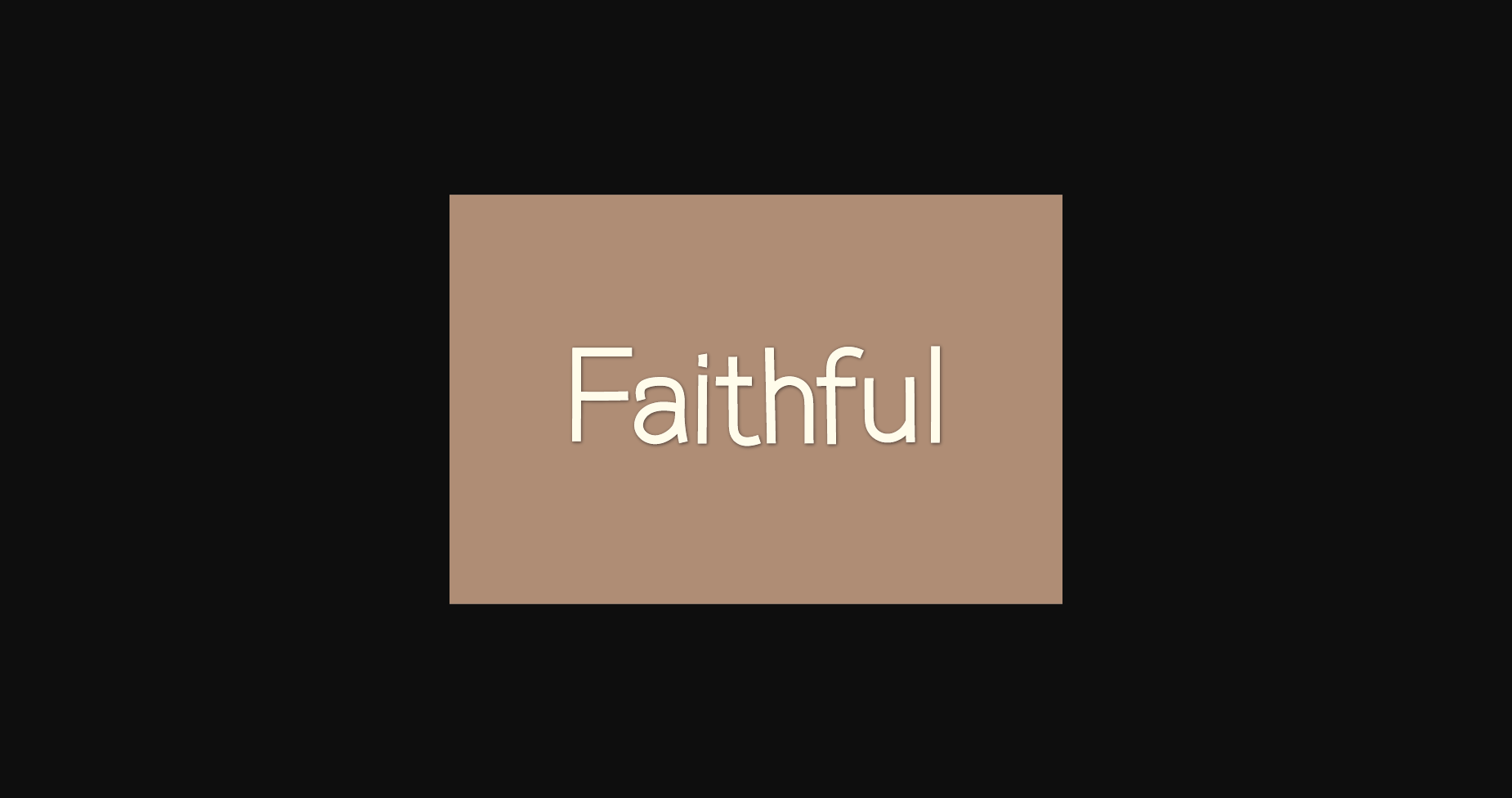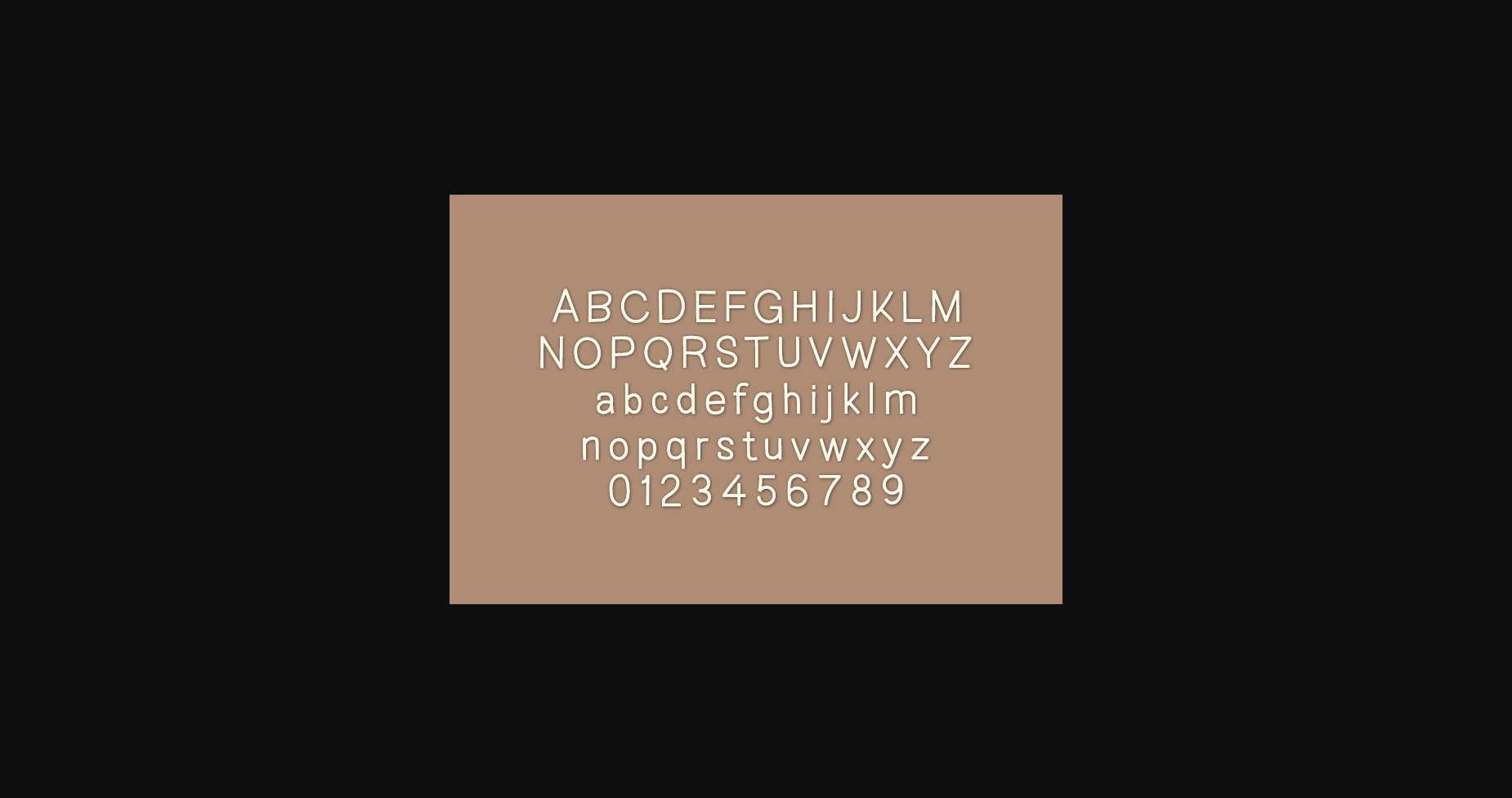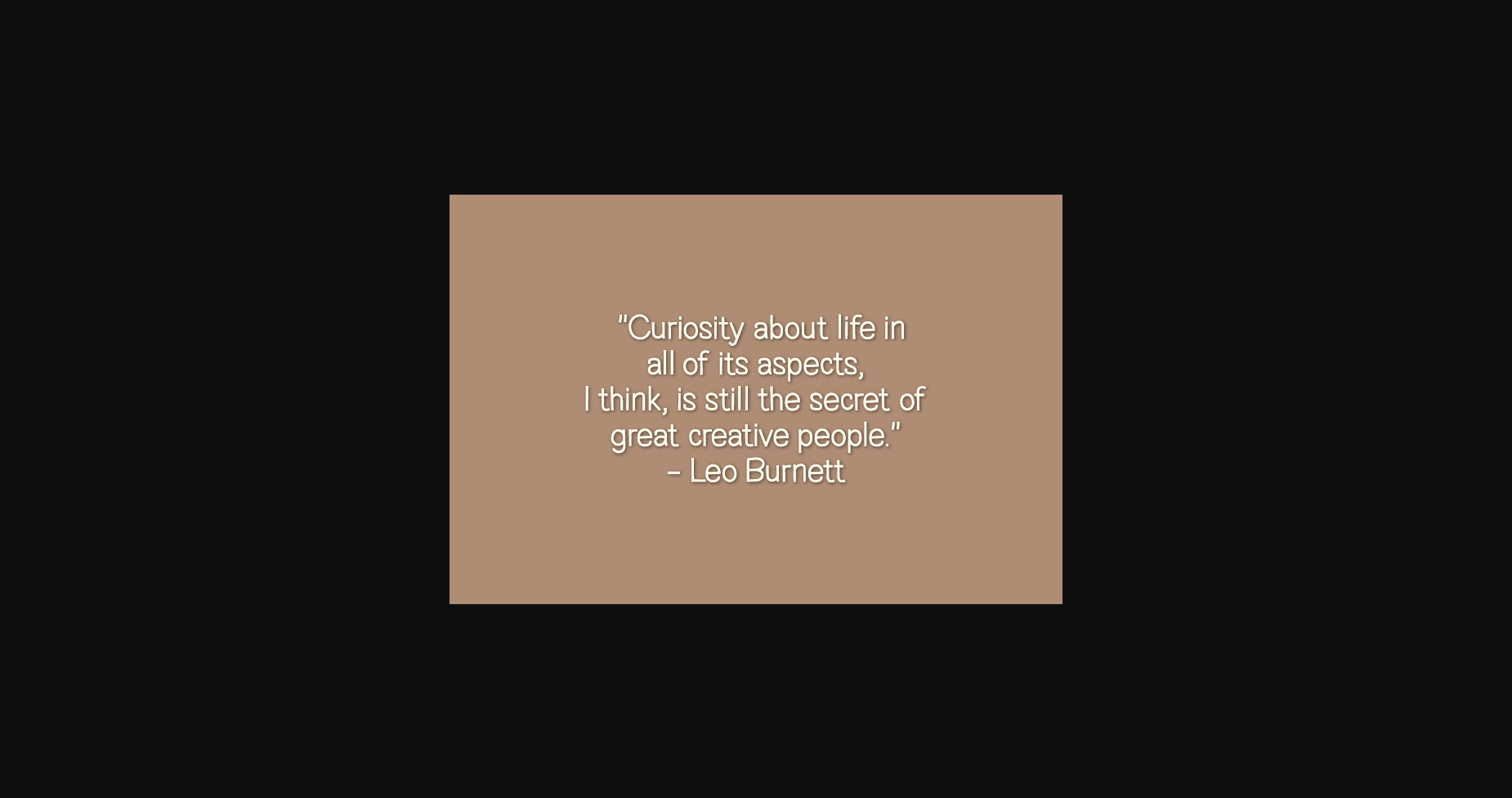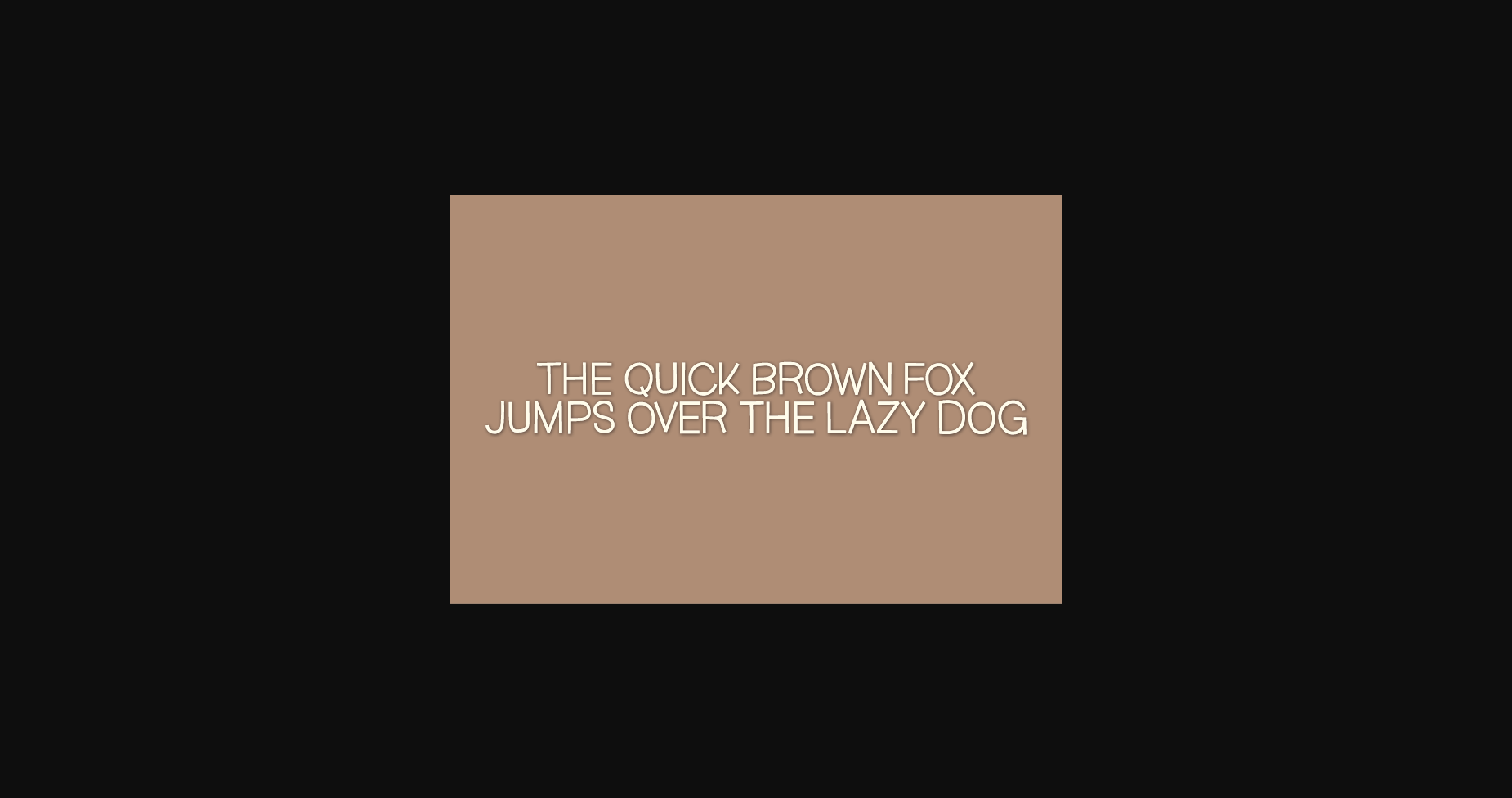
About Faithful Font
Faithful is a beautiful sans serif font that will make a wonderful asset to your collection. Add it to your logos, quotes, T-shirts, greeting cards, business cards, and many more, and make them outstanding!